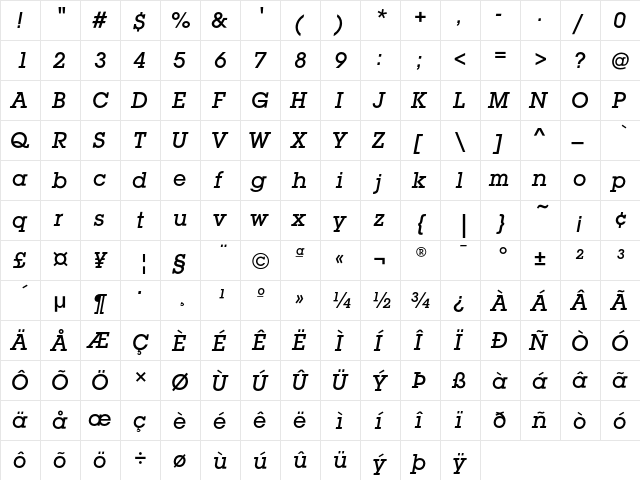
LubalinGraphEF MediumOblique
Design Context for LubalinGraphEF Typeface
LubalinGraphEF takes a measured approach to typography — its balanced proportions and neutral character make it a reliable workhorse for both digital and print work. Its italic angle brings a sense of urgency and motion to the letterforms.
Pro Tip: Try LubalinGraphEF for annotation and caption copy alongside an upright companion — the contrast in angle creates a dynamic but ordered typographic system.